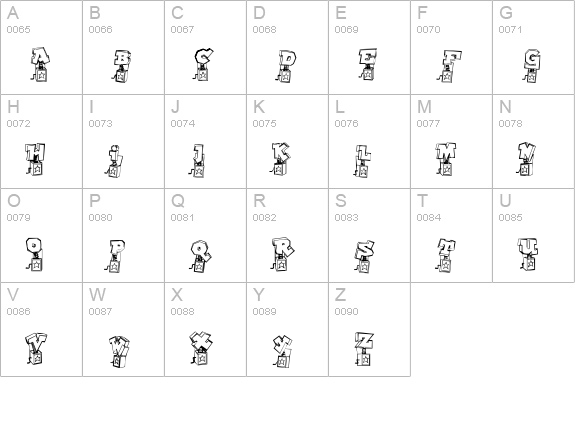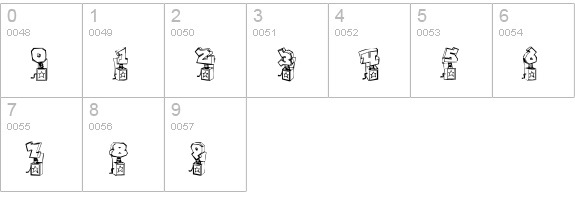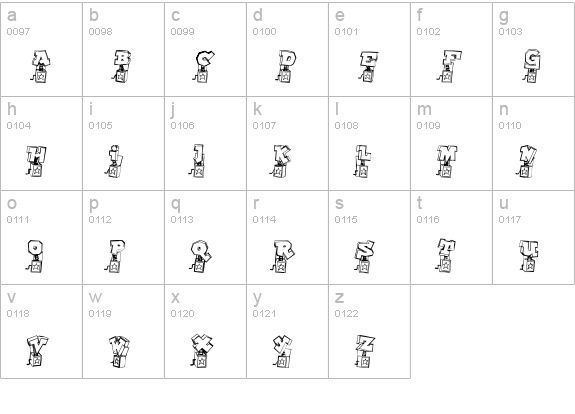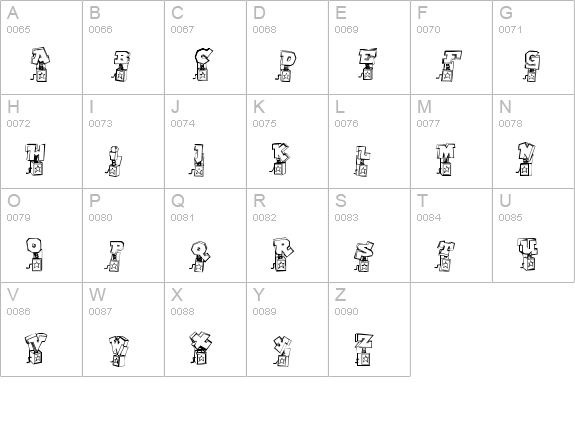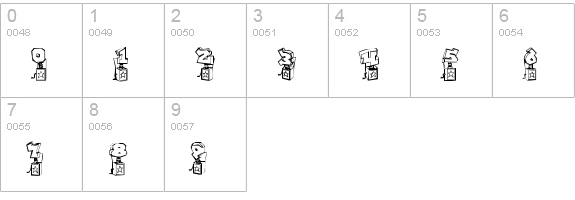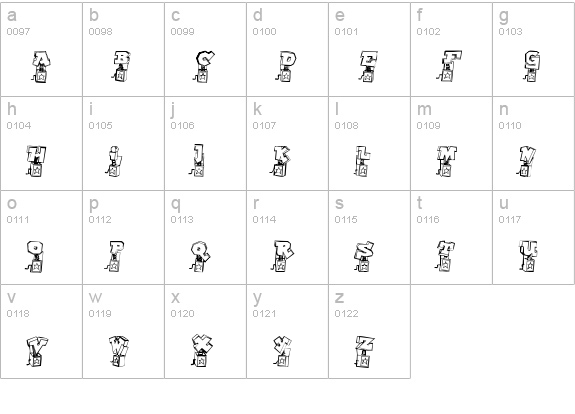
PopUpFontio Font Details
PopUpFontio is a whimsical and playful font that exudes a sense of fun and creativity. With its unique design and eye-catching appearance, PopUpFontio is sure to make your projects stand out. Whether you're working on a poster, logo, or any other design project, this font will add a touch of charm and personality. The best part? PopUpFontio is completely free to download at FontsMarket.com. You can easily add this font to your collection and use it in any of your personal or commercial projects without any restrictions. Don't miss out on the opportunity to enhance your designs with this delightful and free font. Download PopUpFontio today and let your creativity soar!